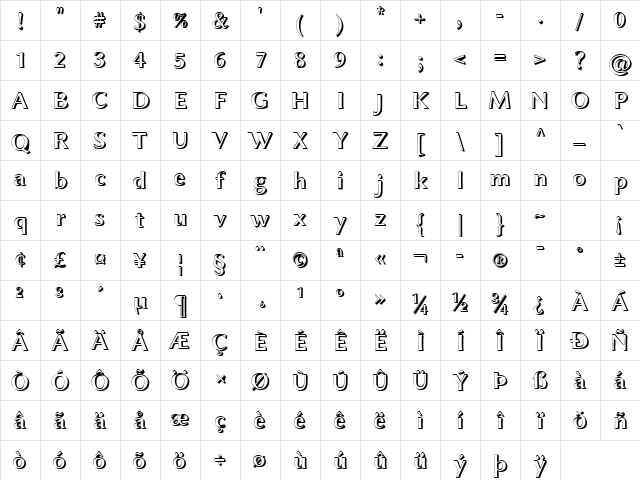
Linux Biolinum Shadow Bold
Foundry: Philipp H. Poll
Designer: Philipp H. Poll
Design Context for Linux Biolinum Shadow
Linux Biolinum Shadow is built around its visual character rather than neutral utility - its distinctive forms are designed to make an impression at display sizes. Its bold stroke weight gives it real presence on the page.
Font Pairing: Pair with a clean neutral sans-serif for body copy to let Linux Biolinum Shadow's character lead without overwhelming the composition.
Pro Tip: Use Linux Biolinum Shadow exclusively at display sizes - it was designed to be seen, not read at length. Let a neutral companion handle body copy.